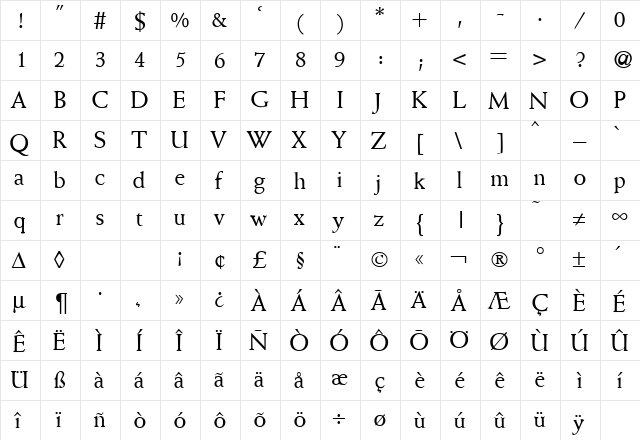
Waize Regular
Design Context for Waize Typeface
Waize offers clean, dependable letterforms without strong stylistic allegiance, making it a practical choice for designers who need flexibility.